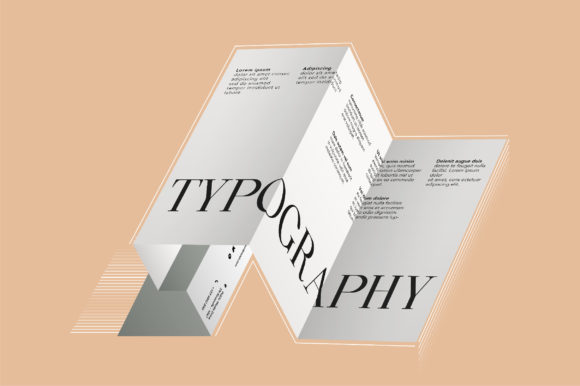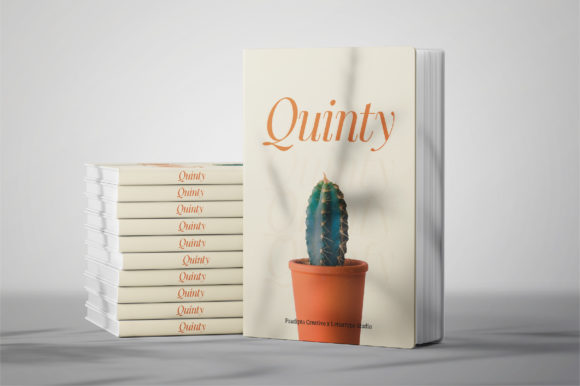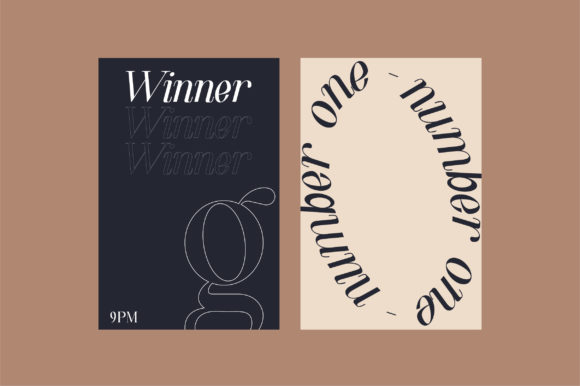
Introduction to Quinty Font
Quinty is a slim, elegant and stylish serif font.
It is PUA encoded which means you can access all of the glyphs and swashes with ease .
Key Features of Quinty Font